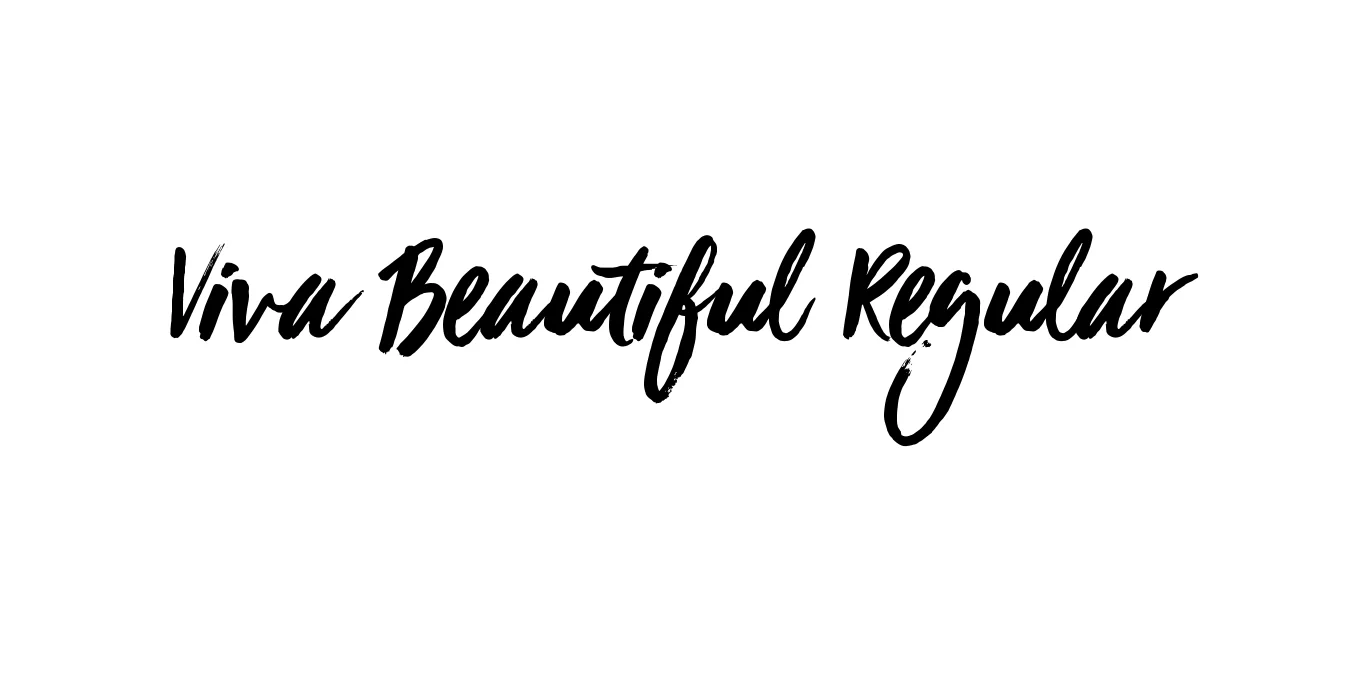
Viva Beautiful Regular
Designed by Cultivated Mind
Viva Beautiful Regular is a stunning hand-painted brush font family created by Cindy Locke of Cultivated Mind. Released around 2016, this typeface was designed to capture the raw energy and textured nuances of real brush strokes on paper. It belongs to a larger family of styles including pro and script versions, but the Regular weight stands out for its balanced, fluid motion and high-contrast ink effects that provide a truly organic and artisanal feel to any creative project.
This typeface has become a favorite among designers for its expressive nature and extensive set of ligatures and alternates. These features allow for a more natural, handwritten appearance that avoids the repetitive look of standard digital fonts. Whether used for large-scale headlines or intimate stationery, Viva Beautiful Regular brings a sophisticated yet rustic charm that bridges the gap between modern typography and traditional hand-lettering techniques.
Viva Beautiful Regular Best Uses
Ideal for lifestyle brands, fashion logos, and boutique identities.
Perfect for wedding invitations, save-the-dates, and formal event signage.
Great for organic beauty products, wine labels, and specialty food packaging.
Used for high-impact inspirational quotes and stylized Instagram graphics.